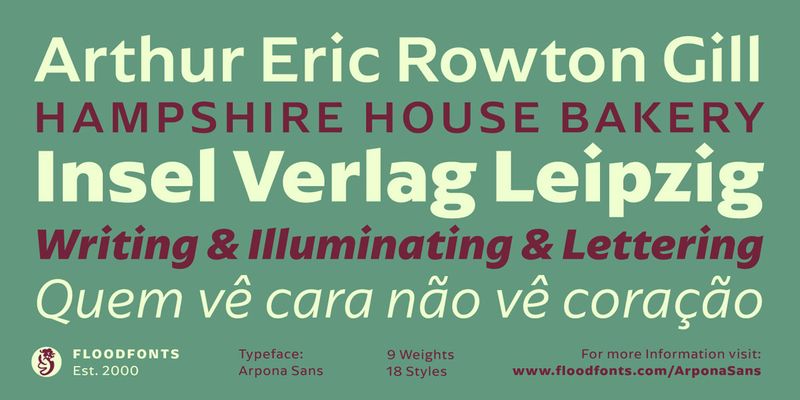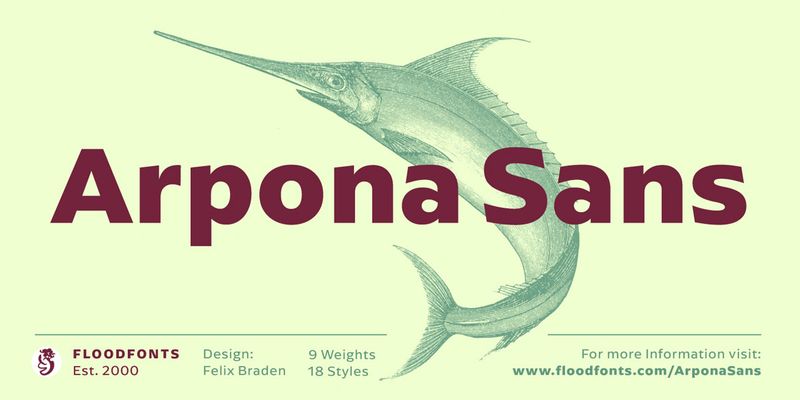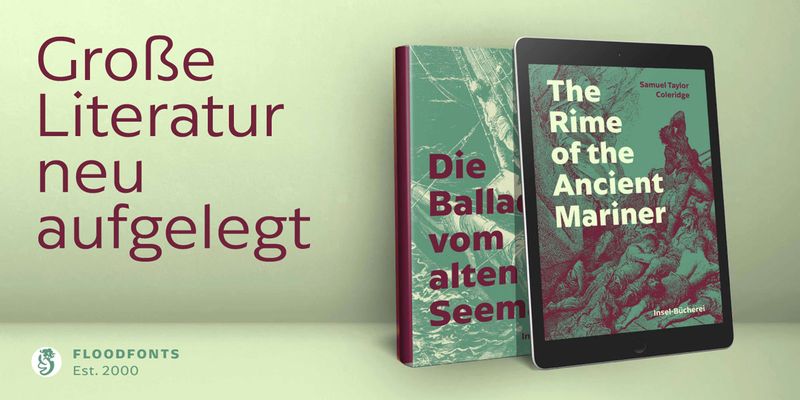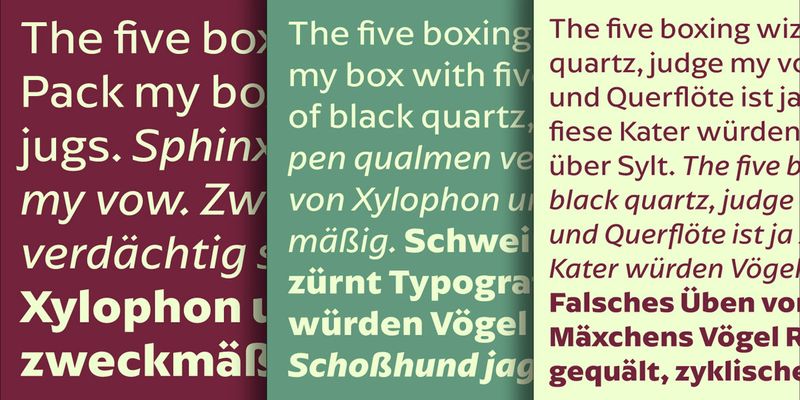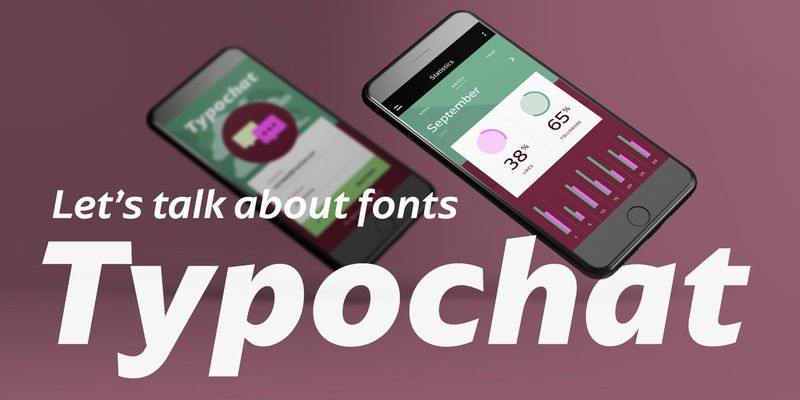
Arpona Sans is a contemporary sans serif family inspired by the work of Edward Johnston for London Underground. Arpona Sans combines the esthetics of a geometric Sans with the usefulness of the humanist concept and the calm of the modernist proportions. Arpona Sans is a good choice for editorial design, branding, app design and web design – a workhorse well readable even in running text on screen.